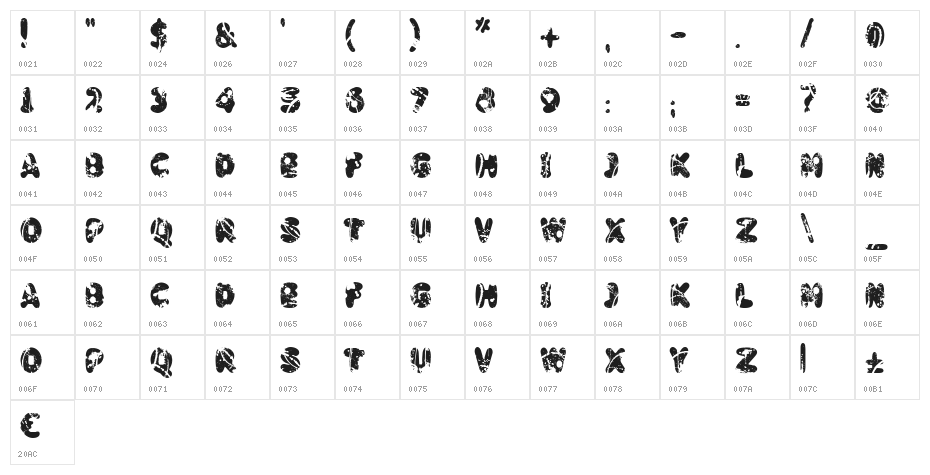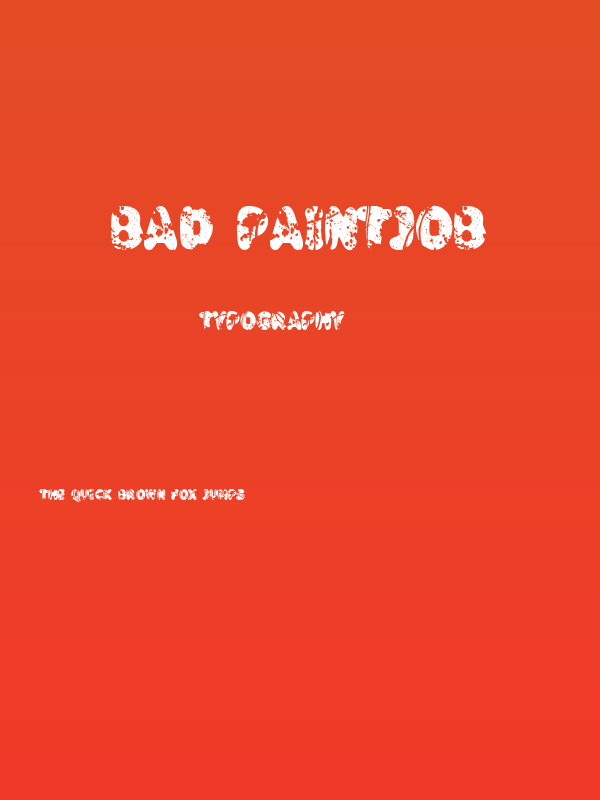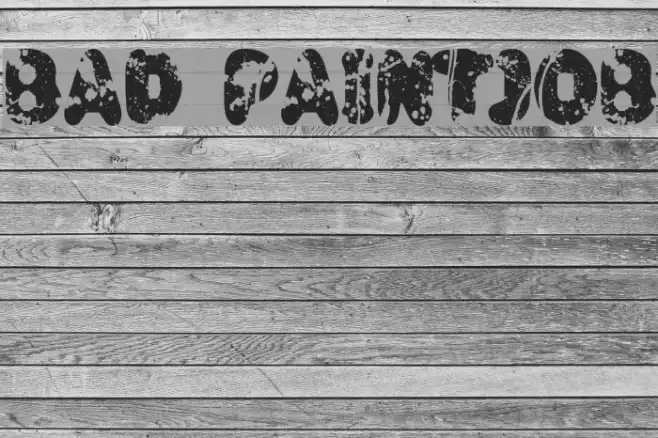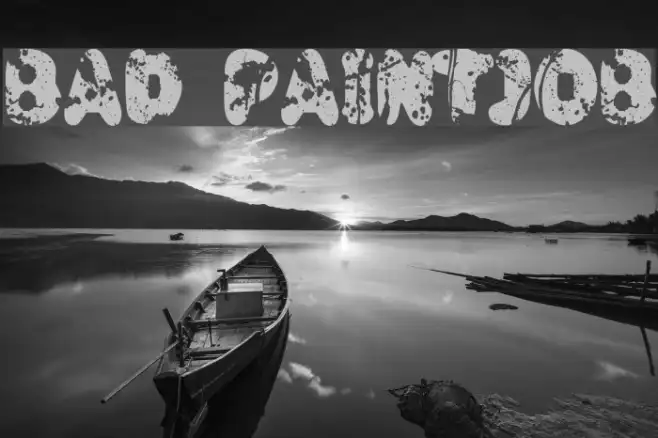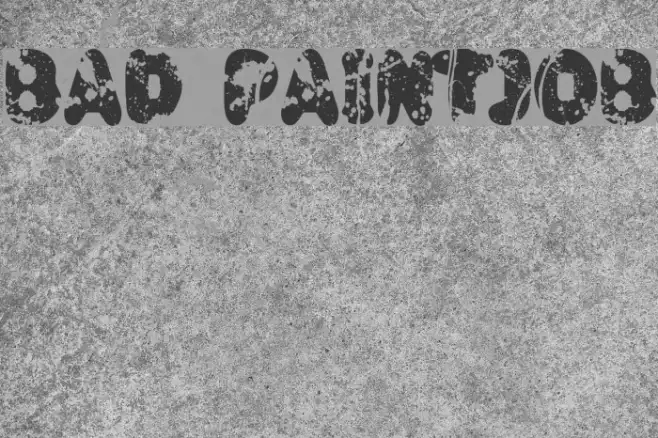
Bad Paintjob Font
Bad Paintjob Description
This font features a bold and distressed style, reminiscent of a paint-splattered surface. Each character is heavily textured with irregular edges and splatter patterns, giving it a rugged and dynamic appearance. The uppercase and lowercase letters maintain a consistent design, with a playful yet edgy vibe. Numbers and special characters follow the same aesthetic, ensuring a cohesive look across all elements. The font's unique style makes it stand out, ideal for projects that require a bold statement or a grunge-inspired theme.
| Overall Style | Grunge, Edgy, Artistic |
| Use Case | Logos, Posters, Album Covers |
| Proposed Projects | Ideal for music album covers, streetwear branding, graffiti art, and edgy poster designs. |